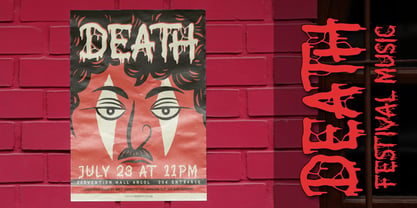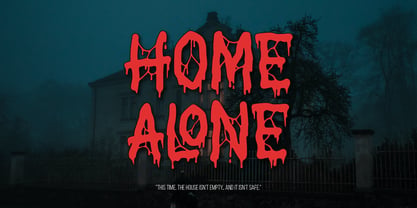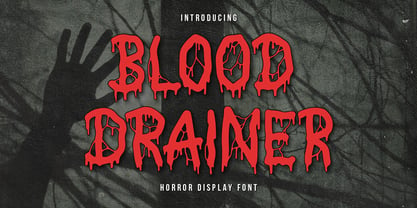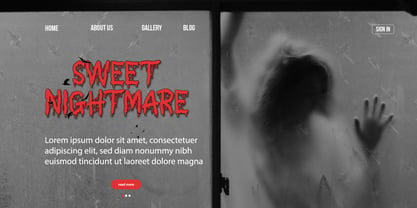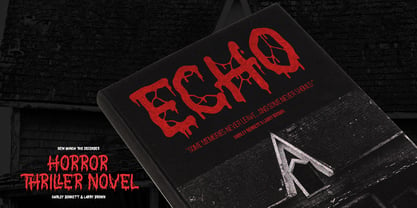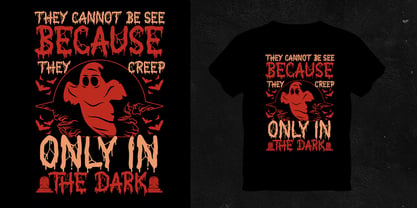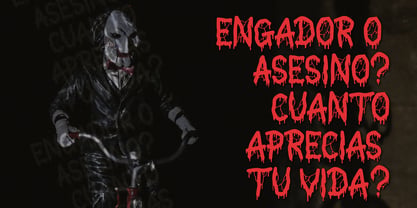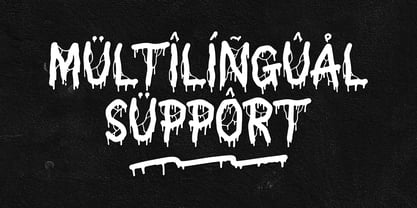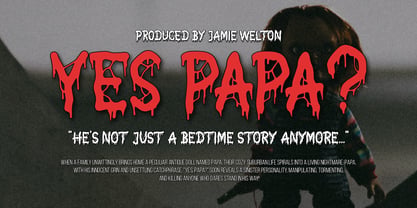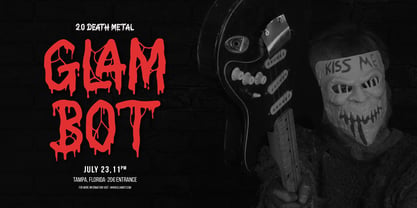
Blood Drainer
Blood Drainer | Horror Display Font, from Gracetypestudio, suitable for any projects such as: logos, branding projects, homeware designs, product packaging, mugs, quotes, posters, shopping bags, t-shirts, book covers, name card, invitation cards, greeting cards, label, photography, watermark, special events, and all your other lovely projects that need a Horror Display Font taste.
• Regular and Italic
• Alternate and Ligature
• Fonts include multilingual support